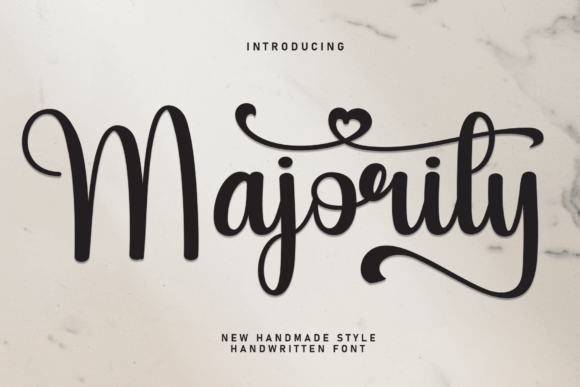
Prepare to be enthralled by Majority Font, a magnificent script font family that is guaranteed to leave you spellbound. Specifically designed to add an extra touch of charm to Christmas cards, this striking collection is the creation of the renowned Strongkeng Old, a visionary artist with an innate flair for creating fonts that resonate with audiences.
Majority Font boasts a personality that is both sweet and friendly, making it the perfect choice for expressing heartfelt sentiments. Its handwritten strokes exude warmth and charm, reminiscent of a loved one's comforting embrace. Whether you're designing wedding invitations, greeting cards, or any project that calls for a whimsical touch, Majority Font will undoubtedly leave a lasting impression.
Immerse yourself in the world of Majority Font and let your creativity soar. Its versatile nature allows for boundless possibilities, from heartfelt messages to playful invitations. Each character is meticulously crafted to convey a sense of joy and celebration, making it the ideal companion for capturing life's most memorable moments.
Whether you're a seasoned designer or just starting your creative journey, Majority Font will undoubtedly elevate your projects to new heights. Its user-friendly design makes it accessible to everyone, regardless of skill level. Unleash your imagination and watch as your designs come to life, imbued with the magic of Majority Font.